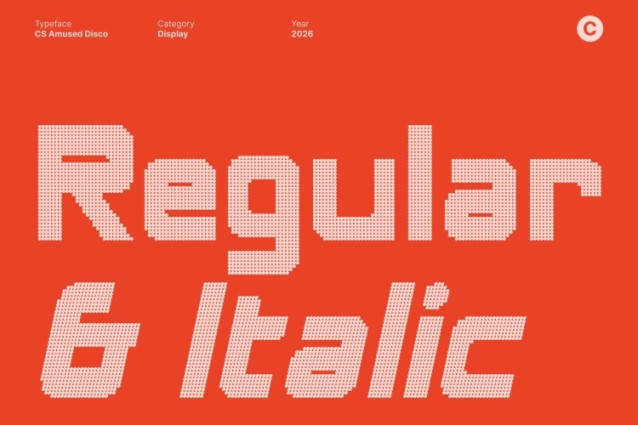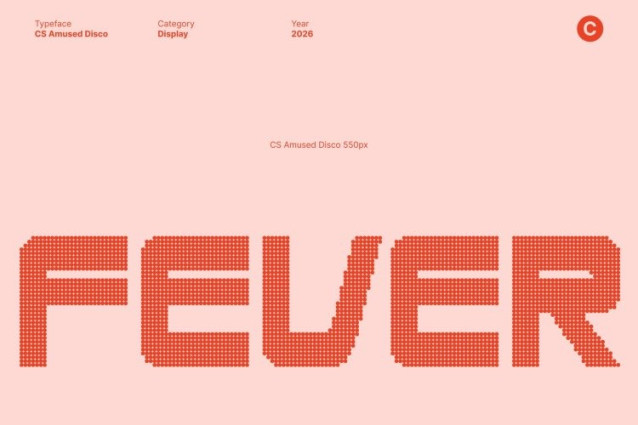
CS Amused Disco Font
CS Amused Disco Font This is a bold techno-inspired sans serif display font designed to radiate modern energy and confident visual power. Its clean, futuristic construction blends sharp lines with dynamic proportions, creating letterforms that feel fast, digital, and forward-thinking now energized with a vibrant disco attitude.
Bold Construction with Glamorous Visual Force
The heavy weight of this font delivers a commanding presence across all display applications. Solid strokes and clear shapes ensure strong readability and instant impact, while the disco influence adds rhythm, shine, and expressive movement. This combination allows the font to dominate layouts with confidence, clarity, and festive energy.
Futuristic Precision Meets Disco Nightlife Energy
Built on a strong techno foundation, this font captures innovation and motion through its streamlined geometry. The added disco character introduces a party-ready vibe inspired by flashing lights, electronic beats, and retro-futuristic fashion making the font feel alive, energetic, and visually electric across both digital and print media.
Perfect for Branding, Logos, Posters, and Events
This font excels in branding, logo design, posters, and high-impact promotional visuals. Ideal for technology brands, creative studios, music events, gaming graphics, and contemporary campaigns, it delivers a bold modern voice infused with disco glamour ensuring your designs feel powerful, festive, and impossible to ignore.